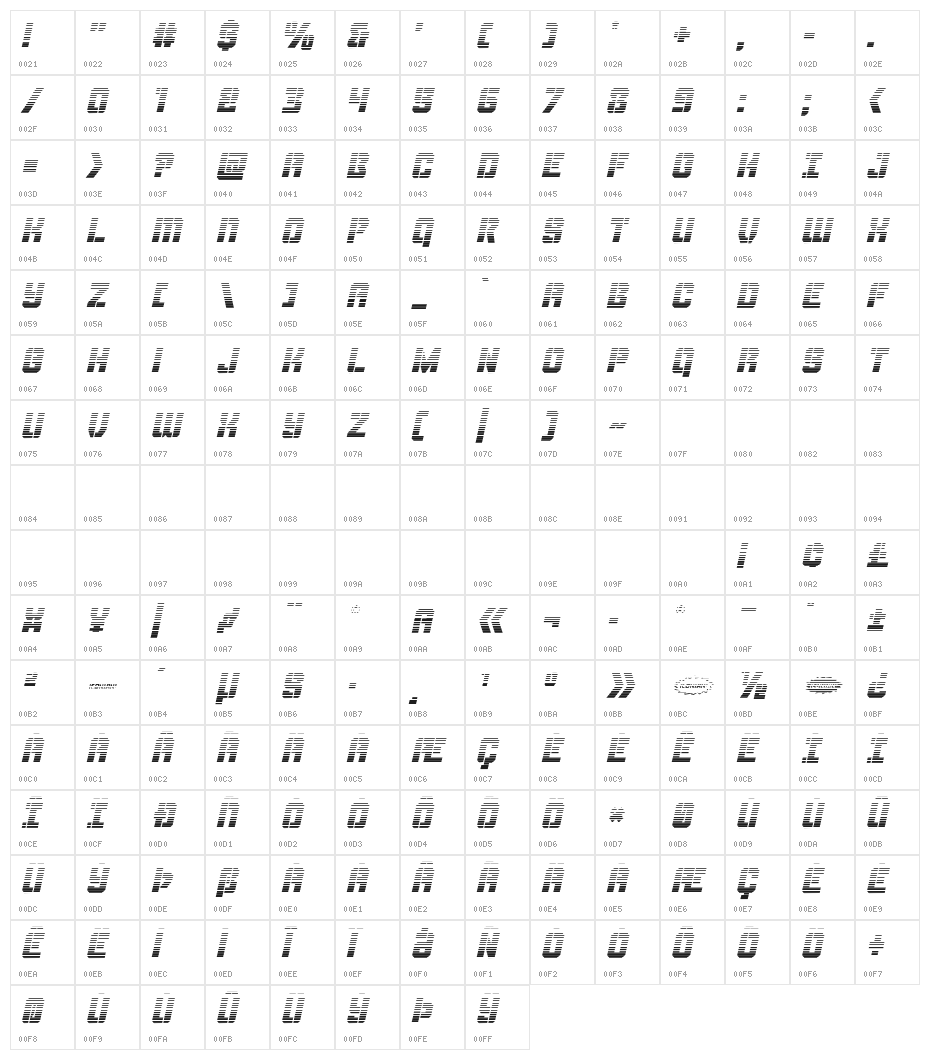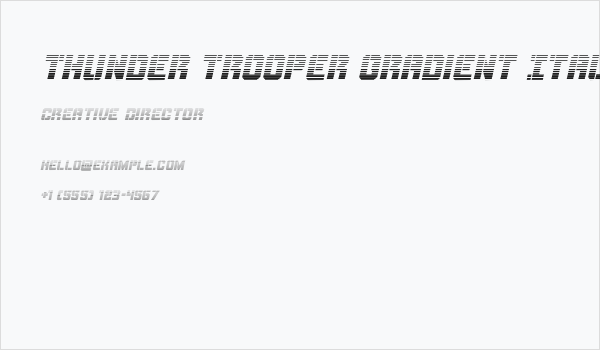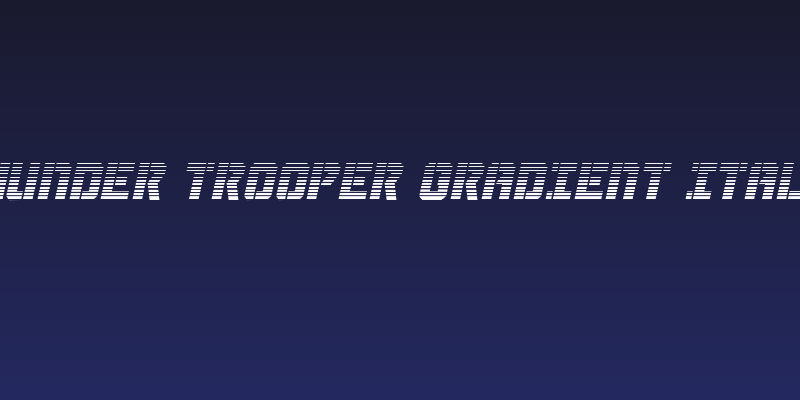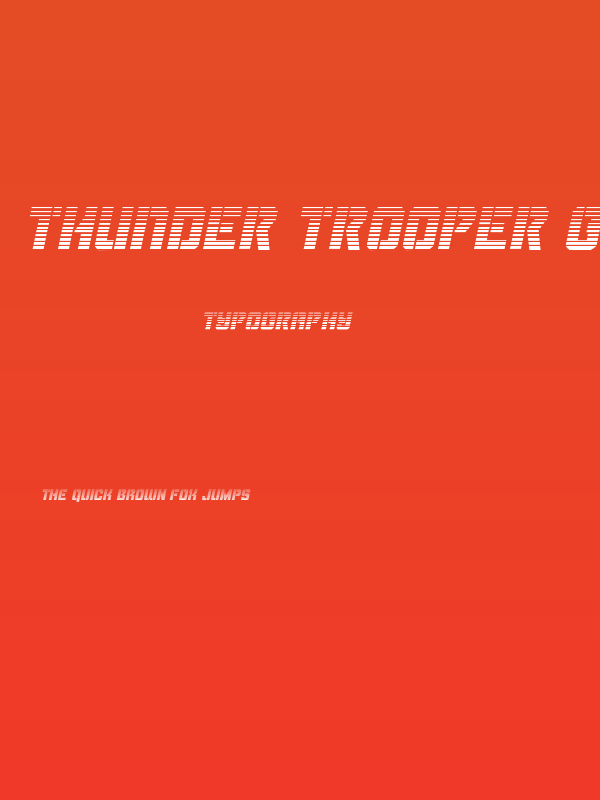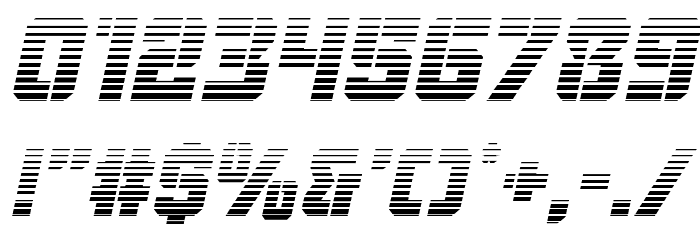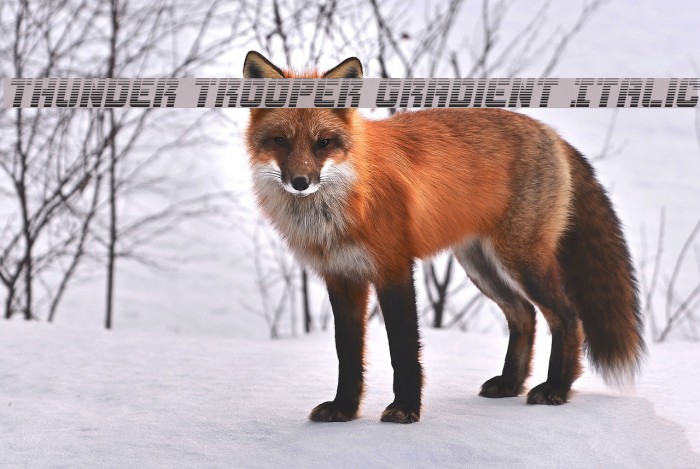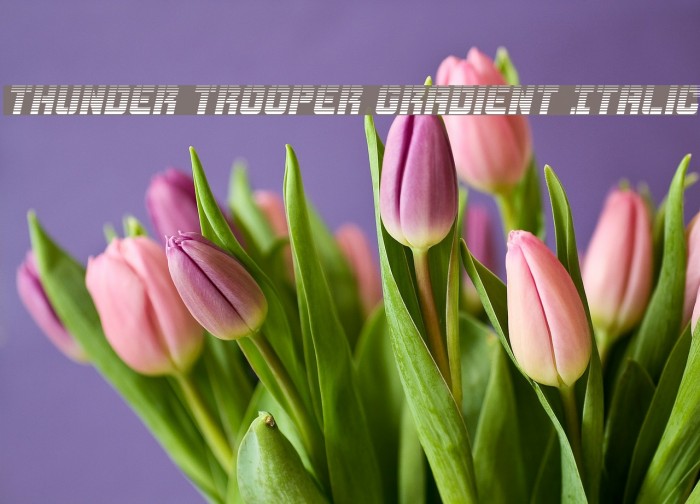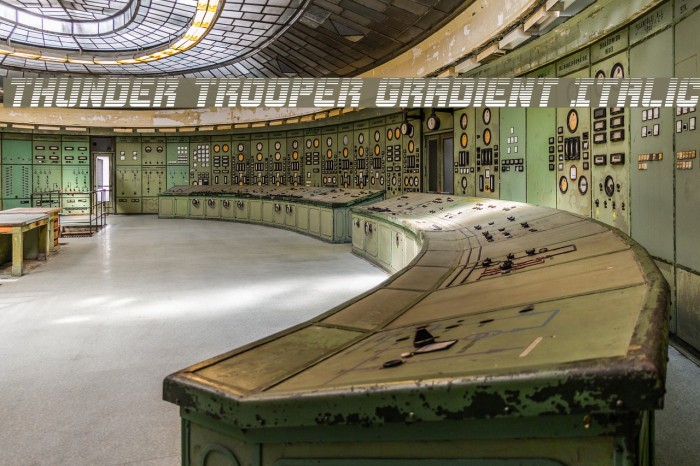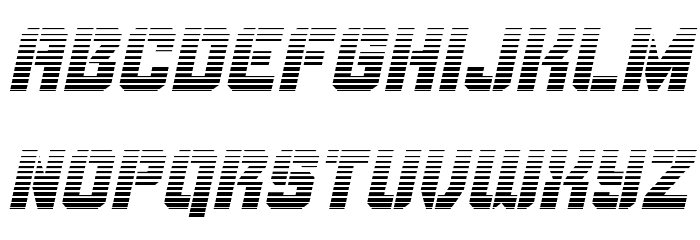
Thunder Trooper Gradient Italic Font
Thunder Trooper Gradient Italic Description
This font features a bold, futuristic design with a distinct gradient effect that gives it a dynamic, three-dimensional appearance. The characters are italicized, adding a sense of motion and speed. Each letter is composed of horizontal lines that create a striped pattern, enhancing its modern and edgy look. The font is highly stylized, making it ideal for projects that require a strong visual impact. Its unique design is perfect for conveying a sense of technology and innovation.
| Overall Style | Futuristic |
| Proposed Projects | Ideal for sci-fi themed posters, video game titles, tech branding, and futuristic event flyers. |